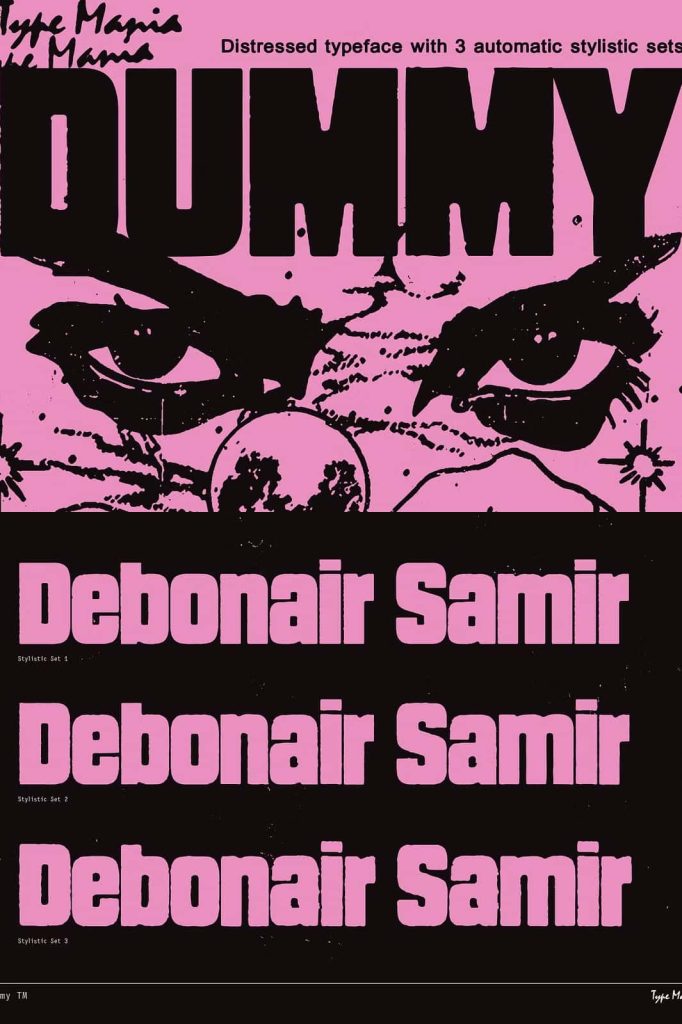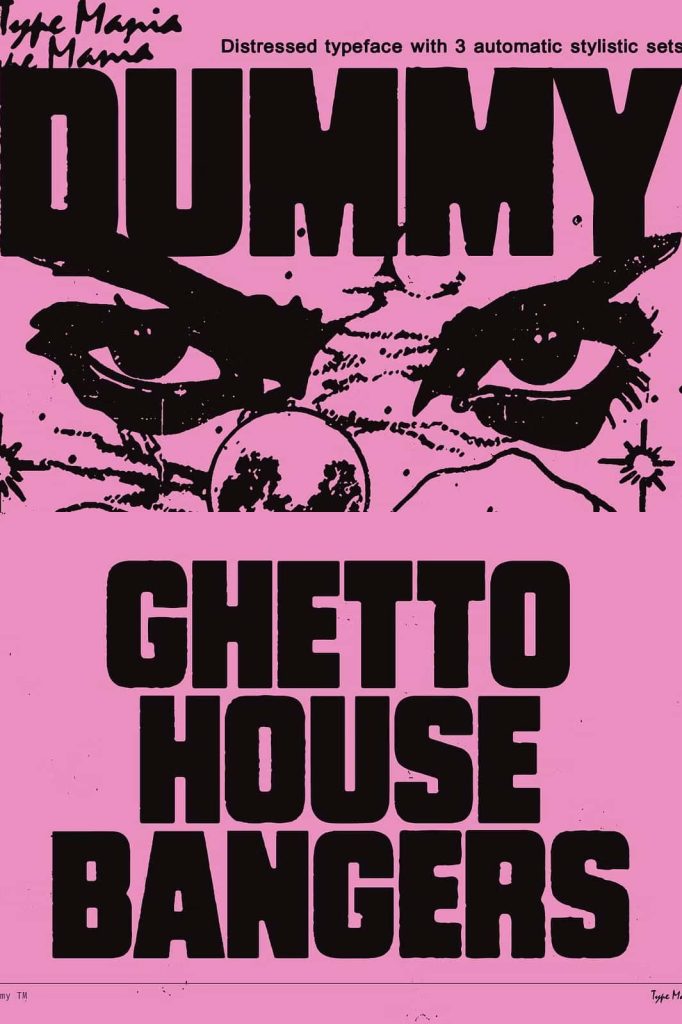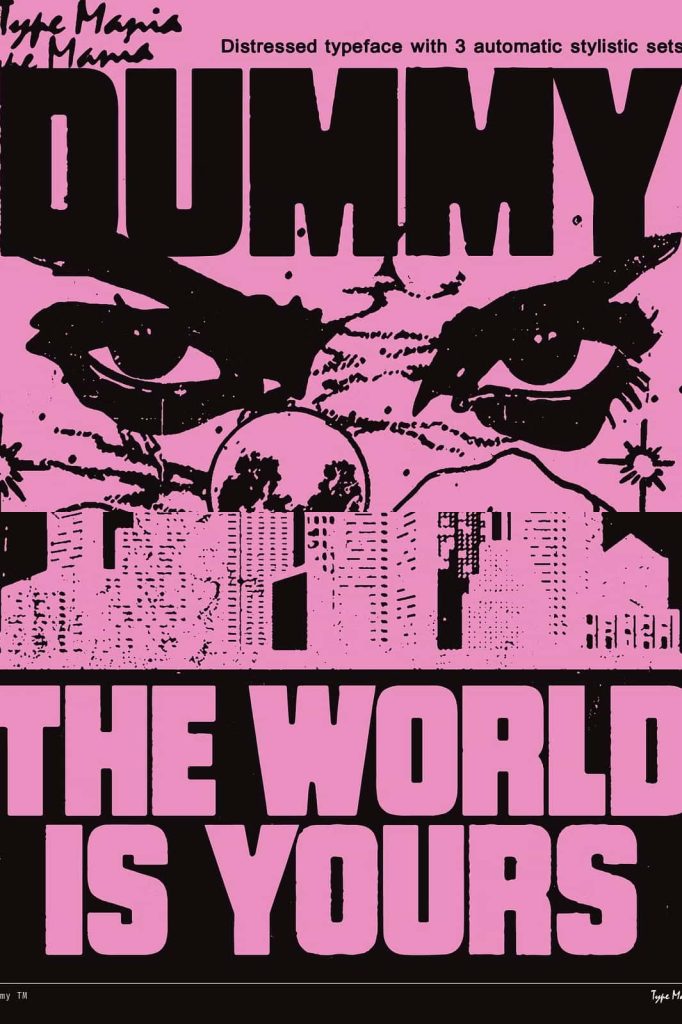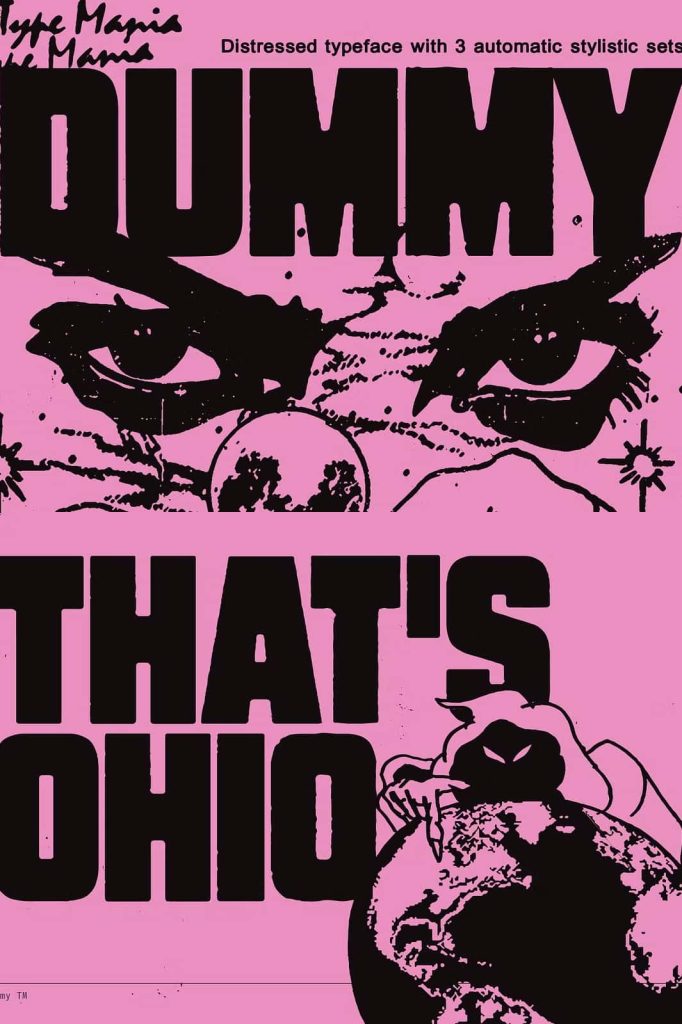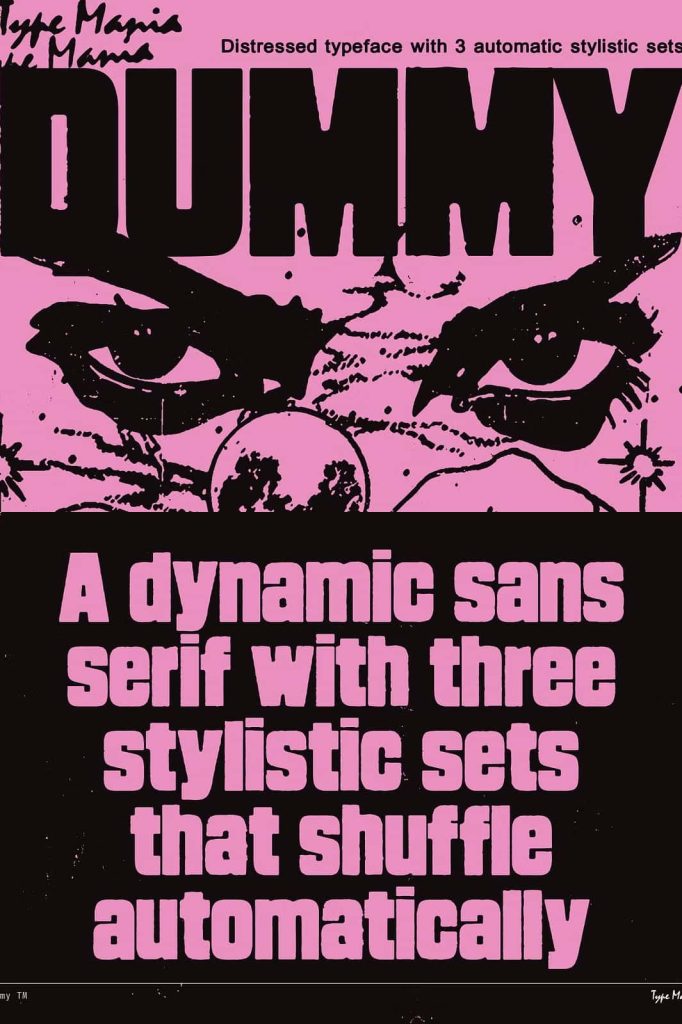
Dummy TM Font: A Heavy Distressed Typeface Built for Bold and Gritty Design
The Dummy TM Font delivers the ultimate distressed style for designers who want to bring raw energy and authentic texture to their work. Built with a heavy, worn aesthetic, Dummy TM gives every project a powerful visual presence that demands attention. Whether you want to create street-style flyers, bold record covers, expressive t-shirt designs, or urban-inspired graphics, this typeface brings an edgy character that instantly elevates your creative direction. With its rough texture and impactful shape, Dummy TM becomes an essential choice for designers seeking a gritty, rebellious, or underground tone.
A Typeface Engineered for Distressed and Textured Appeal
Dummy TM stands out because of its bold, distressed letterforms. Every character appears weathered, rugged, and full of personality, giving your text a tactile and authentic look. Unlike clean or polished fonts, Dummy TM embraces imperfection. These imperfections bring life and texture to your design, making each piece feel handcrafted and visually powerful. This distressed aesthetic adds a sense of realism that works especially well for urban culture, grunge-themed visuals, and high-impact display typography.
Automatic Stylistic Set Rotation for Creative Efficiency
One of Dummy TM’s most innovative features is its automatic stylistic set rotation. The font includes three unique stylistic sets that shift as you type, ensuring your text appears varied, dynamic, and visually interesting. This eliminates the need for manual character swapping, streamlining your workflow and boosting creative efficiency. Designers can focus on layout and visual message while the font effortlessly introduces variation, making every word feel organic and naturally distressed. This feature is particularly useful when crafting longer titles or display text that benefits from irregular rhythm and texture.
Perfect for Street-Style and Urban Design Projects
Dummy TM shines brightest in creative environments that demand bold and unapologetic visuals. Street smart flyers, underground event posters, club promotions, and streetwear branding all benefit from the font’s rough, impactful personality. Its distressed texture pairs well with gritty backgrounds, graffiti-inspired layouts, and bold color palettes. Whether you are designing for music festivals, skate culture, hip-hop events, or contemporary youth-oriented campaigns, Dummy TM brings authenticity and energy to your design language.
Ideal for Record Covers and Music Branding
Music-related design thrives on strong visual mood, and Dummy TM delivers exactly that. Its heavy, textured look resonates with genres like rock, punk, metal, hip-hop, and alternative music. When used on record covers, album posters, or promotional materials, the typeface enhances the raw mood of the music and strengthens the overall artistic identity. Dummy TM helps you capture the rebellious spirit or emotional intensity that many music projects require.
Bring Impact to Apparel and T-Shirt Designs
Apparel designers love Dummy TM for its bold and rugged style. T-shirt prints, hoodies, merchandise graphics, and streetwear branding gain a compelling edge with the font’s distressed texture. The strong letterforms command attention from a distance, making them perfect for apparel meant to stand out in urban environments. Whether you design bold slogans, typographic artwork, or logo-based merchandise, Dummy TM delivers a powerful visual punch.
Versatile for Posters, Advertising, and Creative Experiments
Beyond street-style applications, Dummy TM works beautifully in experimental graphic design. Use it for posters, large-scale titles, advertising layouts, contemporary zines, or any project that needs rugged texture and strong personality. Its visual impact makes it suitable for creative explorations, artistic compositions, and conceptual branding. Designers who enjoy pushing boundaries will appreciate how Dummy TM helps them create dramatic, impactful typography without extra effort.
The Dummy TM Font stands as the ultimate choice for heavy distressed typography. With its bold texture, gritty character, and automatic stylistic set rotation, it transforms any design into a visually compelling piece. Perfect for street-smart flyers, record covers, apparel prints, posters, and creative experimental work, Dummy TM gives designers the power to communicate energy, attitude, and authenticity. If your project requires strong visual impact and raw artistic edge, Dummy TM delivers exactly what you need.